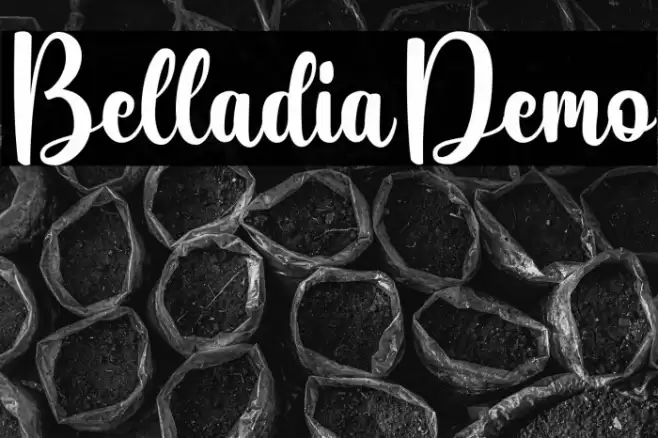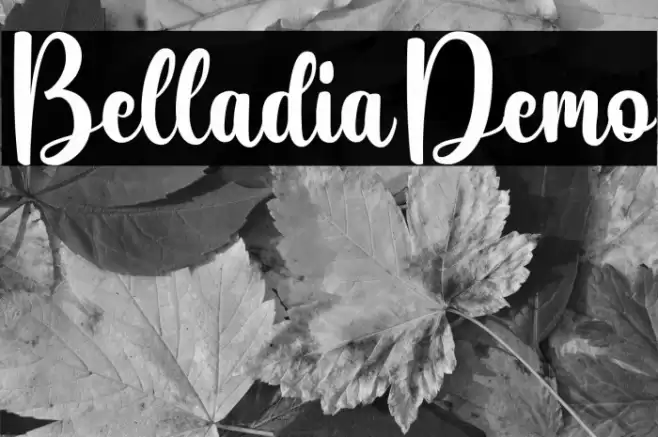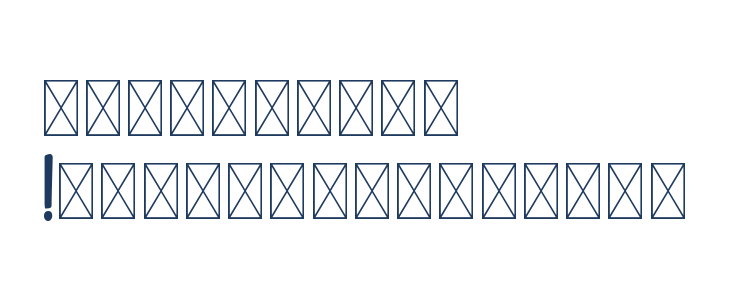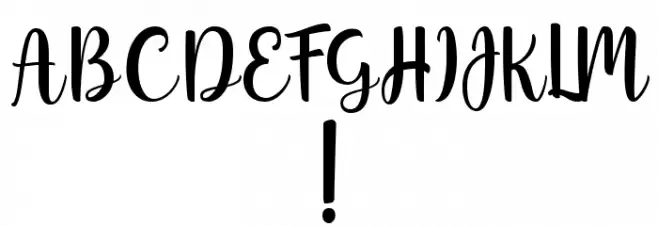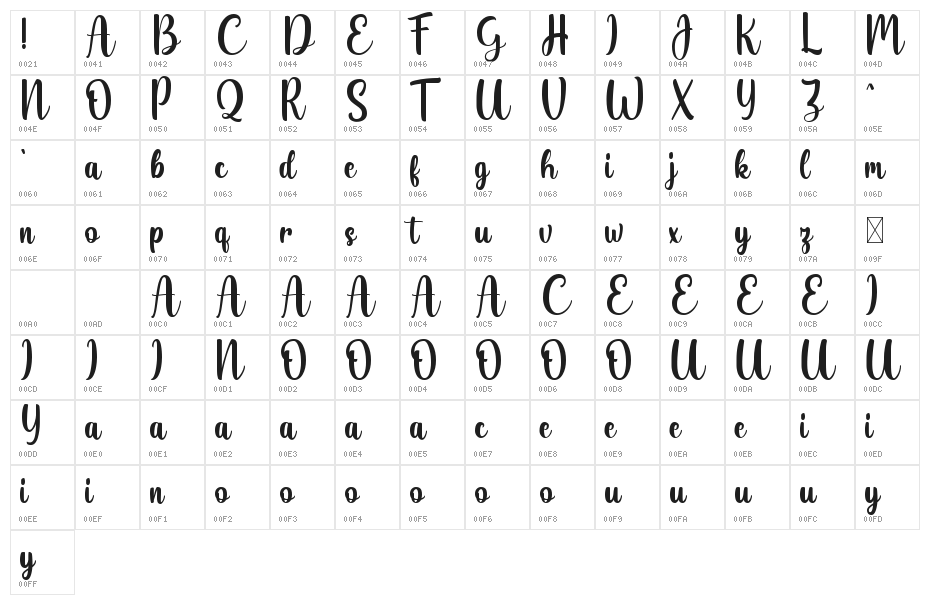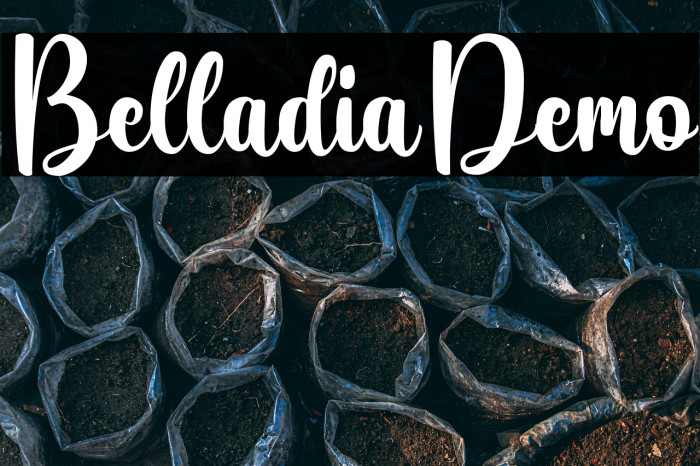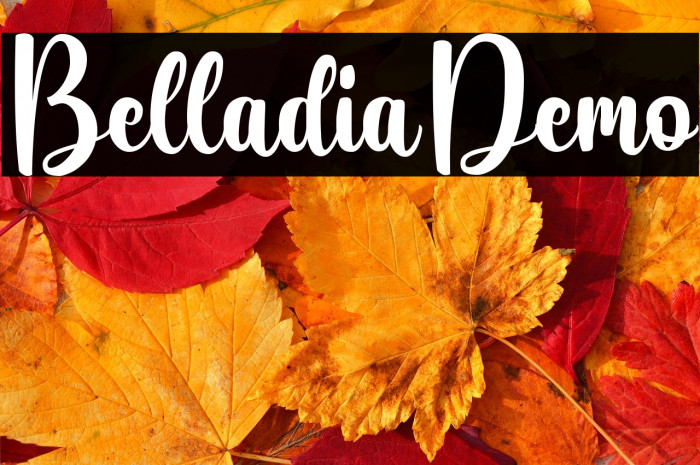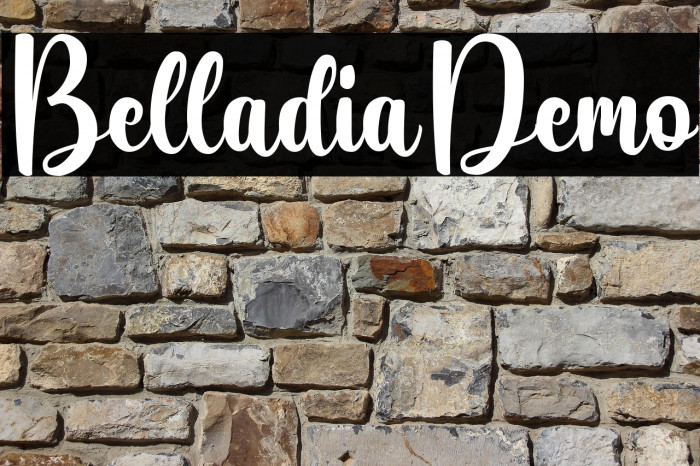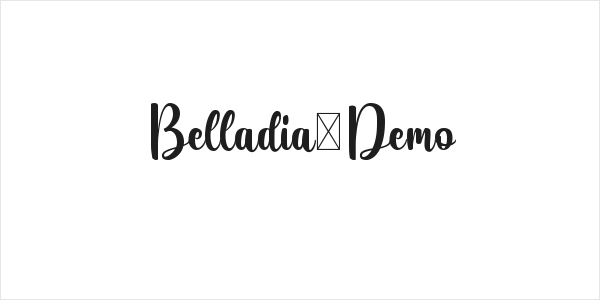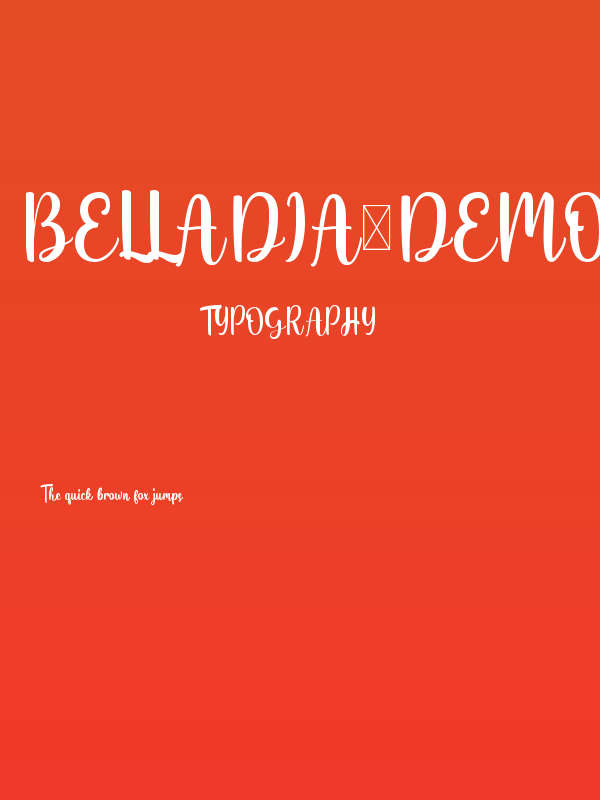
Belladia-Demo Font
Belladia-Demo Description
This font features a playful and elegant script style, characterized by its flowing, cursive letters with a modern twist. The uppercase letters are tall and slightly narrow, with distinctive loops and swashes that add a touch of sophistication. The lowercase letters maintain a consistent flow, with rounded forms and smooth connections between strokes. The overall appearance is both stylish and approachable, making it suitable for a variety of creative applications. The font's design is well-suited for projects that require a personal touch, such as invitations, greeting cards, and branding materials. Its unique character and charm make it stand out, while still being highly readable.
A playful and elegant script font with flowing, cursive letters and modern swashes from Regular fonts.
- Proposed Projects: Ideal for invitations, greeting cards, branding, and creative projects requiring a personal touch.
- Use Case: Logos, Headlines, Invitations